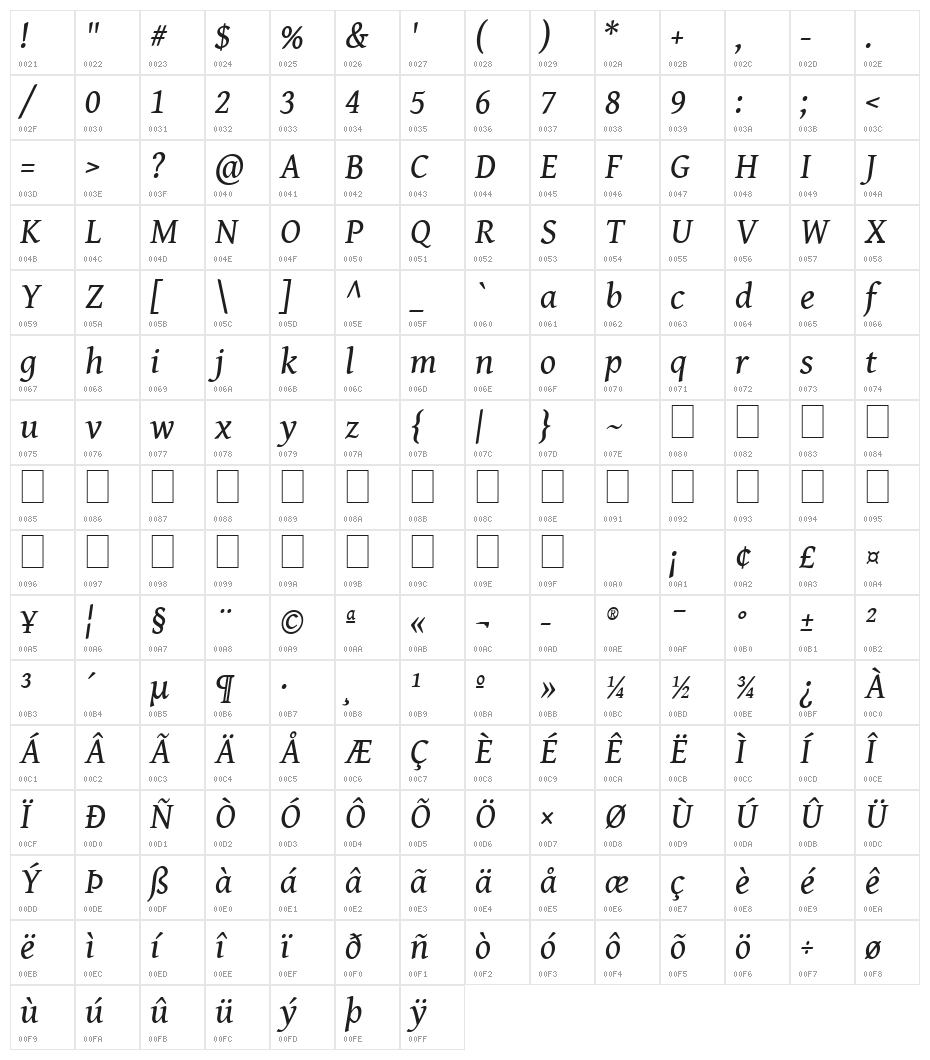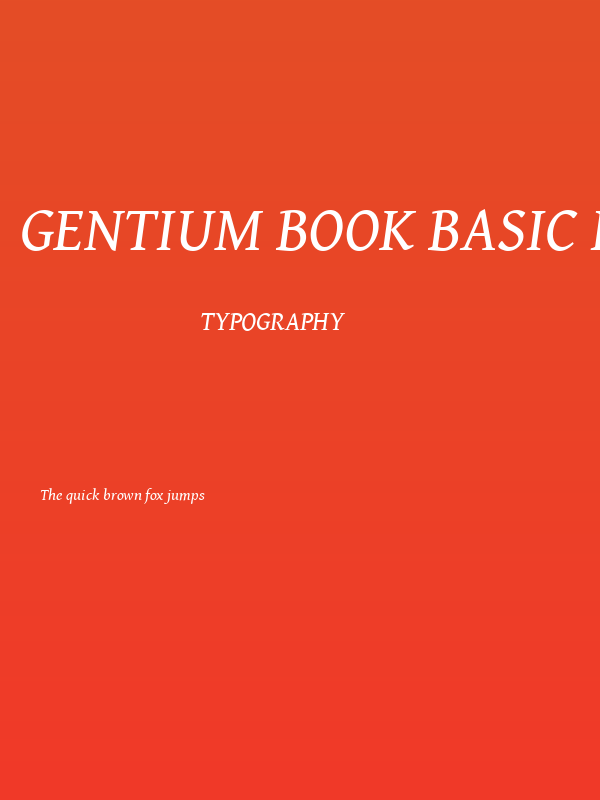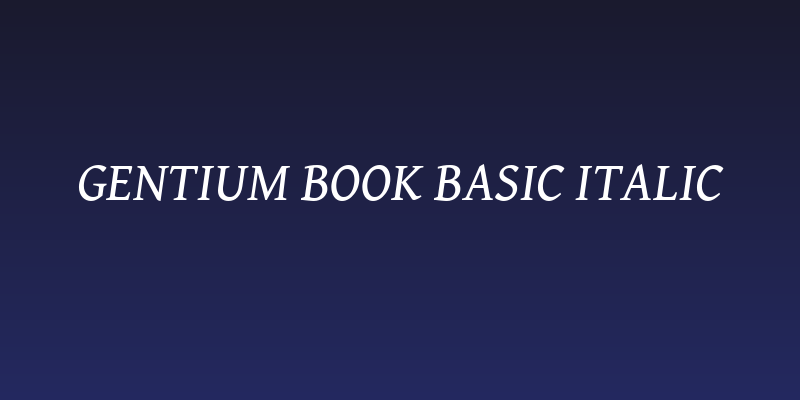
Gentium Book Basic Italic Font
Gentium Book Basic Italic Description
This font features a classic serif style with a gentle italic slant, offering a refined and elegant appearance. The characters are well-proportioned, with a moderate contrast between thick and thin strokes, enhancing readability while maintaining a sophisticated look. The serifs are subtle yet distinct, contributing to the font's timeless appeal. Its italic nature adds a touch of fluidity and grace, making it suitable for both formal and creative applications. The numerals and special characters are designed with the same attention to detail, ensuring consistency across all elements.
| Use Case | Body text, Editorial design, Formal documents |
| Proposed Projects | Ideal for book typesetting, formal invitations, elegant branding, and editorial design. |